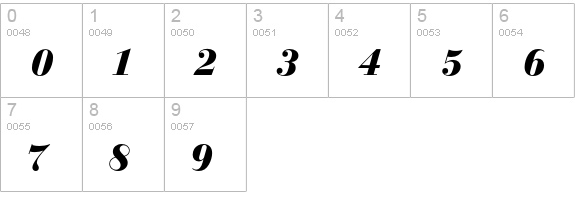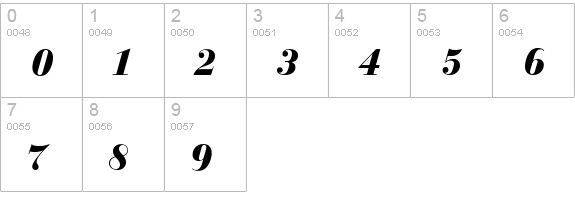
Bauer Bodoni D Bold Italic Font Details
Bauer Bodoni D Bold Italic is a strong, high-contrast, italic variant in the Bauer typeface family \xE2\x80\x94 well suited to headlines, attention-grabbing titles, and strong calls-to-action.
The Bauer Bodoni D Bold Italic font exudes elegance and sophistication with its bold yet graceful design. Its distinctive slanted style adds a touch of flair to any text, making it perfect for adding emphasis and style to your design projects. This font is ideal for creating eye-catching headlines, titles, and branding materials that demand attention. What sets Bauer Bodoni D Bold Italic font apart is not just its striking aesthetics, but also its versatility. Whether you're designing a sleek modern website, a luxurious magazine layout, or a high-end product packaging, this font will elevate your design to the next level. The best part? Bauer Bodoni D Bold Italic font is available for free download at FontsMarket.com. Now you can access this premium font without any cost, making it a valuable addition to your font collection. Don't miss out on the opportunity to enhance your projects with the timeless beauty and sophistication of Bauer Bodoni D Bold Italic font. Download it today and elevate your designs to new heights.